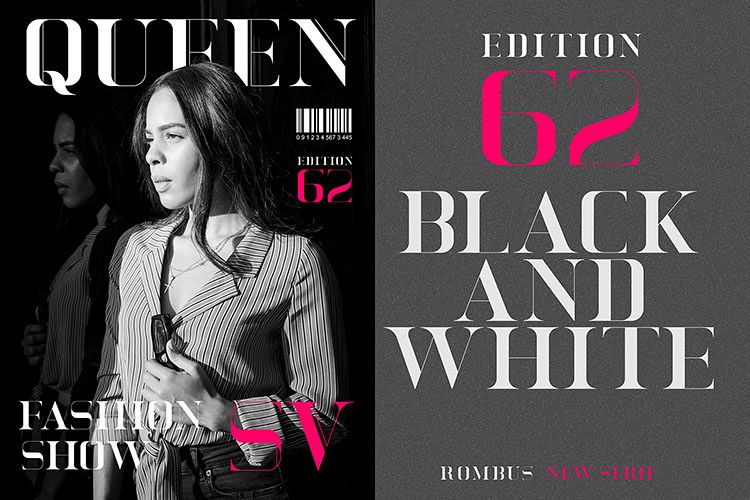
Rombus Modern Serif Font
Rombus Serif With Line
Rombus Serif
Create gorgeous + timeless designs and logos with Rombus, a luxe designer serif. London's thick to thin contrast and sleek lines make it perfect for logos, quotes, invitations, weddings, business cards, powerpoint presentations, and more!What could you create with Rombus? Add it to your collection now!What's included?
• An broader version of the font for a slightly different feel.